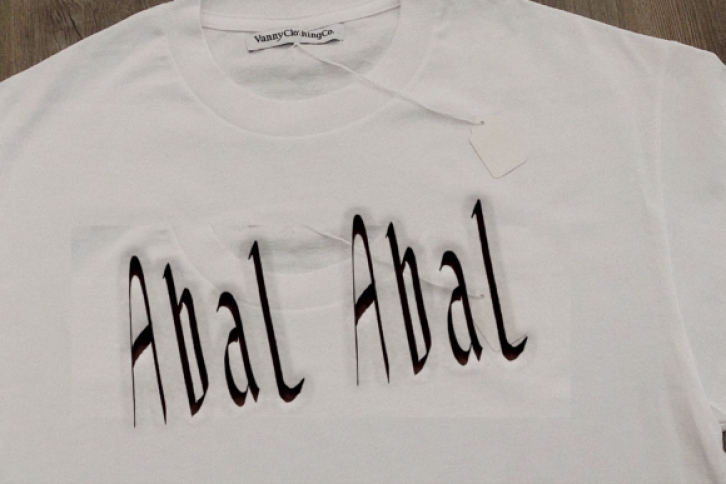
Abal Abal is a tall and thin-lettered script font. Masterfully designed to become a true favorite, this font has the potential to bring each of your creative ideas to the highest level!